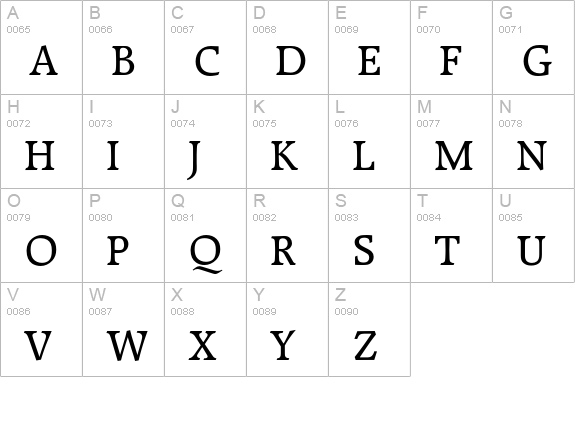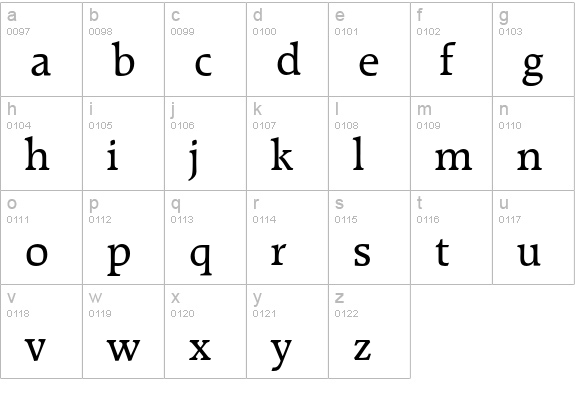
Raleigh-Regular is the standard, neutral variant in the Raleigh typeface family \xE2\x80\x94 well suited to general body text, paragraphs, and standard typographic work.
Raleigh-Regular is a stunning and versatile font that combines elegance with a touch of modernity. Its clean and balanced letterforms make it suitable for a wide range of design projects, from branding and packaging to web and print. With its sleek and sophisticated appearance, Raleigh-Regular effortlessly captures attention and adds a sense of professionalism to any design. One of the best features of Raleigh-Regular is that it is free. Yes, you read that right! This incredible font is freely available to download at FontsMarket.com. Whether you're a professional designer or a hobbyist, you can now enjoy the beauty and versatility of Raleigh-Regular without breaking the bank. The creators of Raleigh-Regular understand the importance of accessibility, and by offering it for free, they have made it possible for everyone to enjoy the benefits of this remarkable font. Whether you're working on a personal project or a client's assignment, Raleigh-Regular is there to elevate your designs and make them stand out from the crowd. The clean and well-defined letterforms of Raleigh-Regular ensure legibility at any size, making it perfect for both headlines and body text. Its versatility is evident in its ability to adapt to various design styles and genres. Whether you're going for a sleek and modern look or a classic and timeless aesthetic, Raleigh-Regular has got you covered. So why wait? Head over to FontsMarket.com and download Raleigh-Regular for free today. Experience the beauty and versatility of this font and take your designs to new heights. With Raleigh-Regular, your creativity knows no bounds.